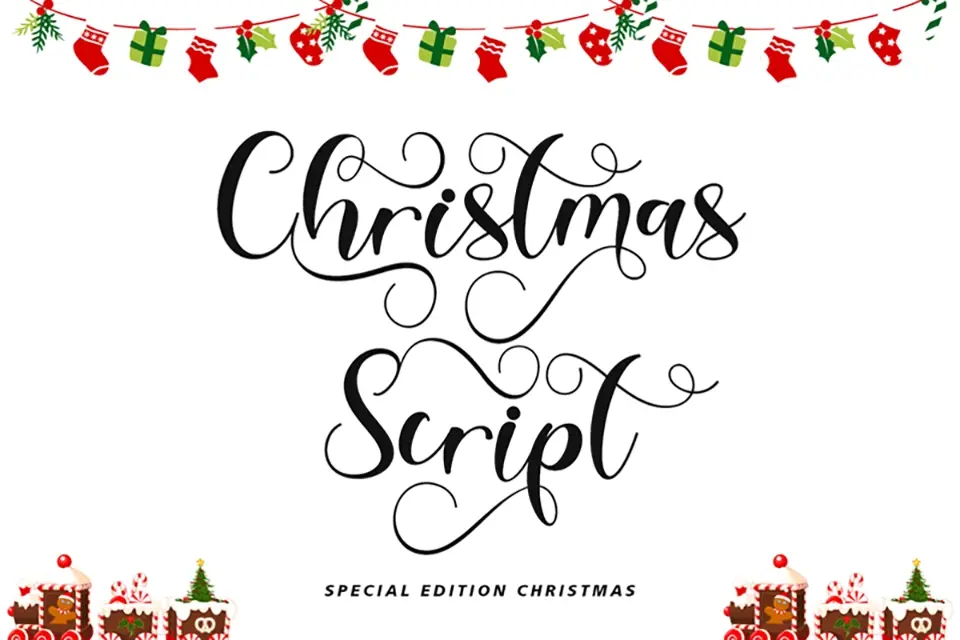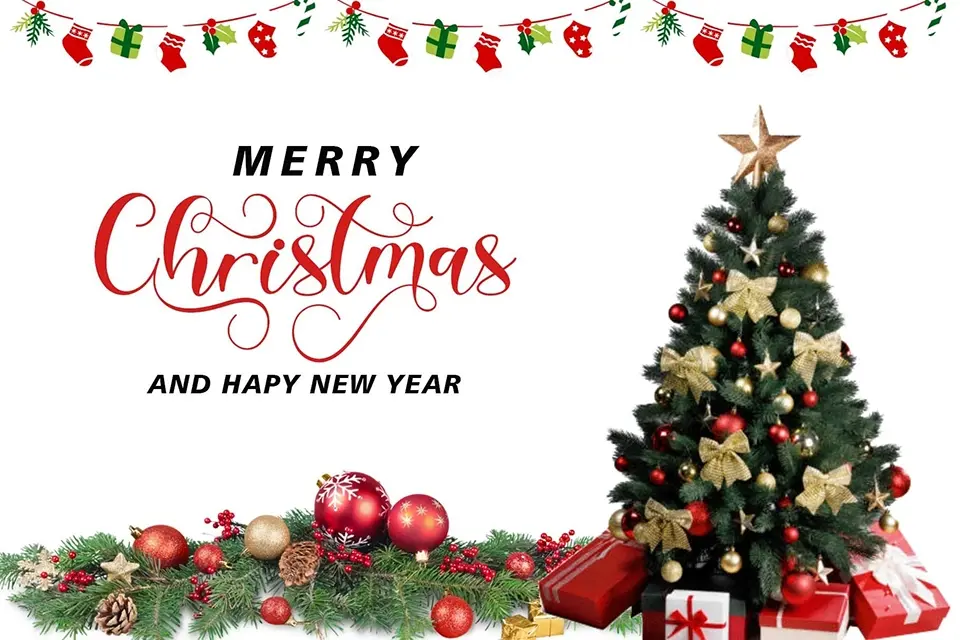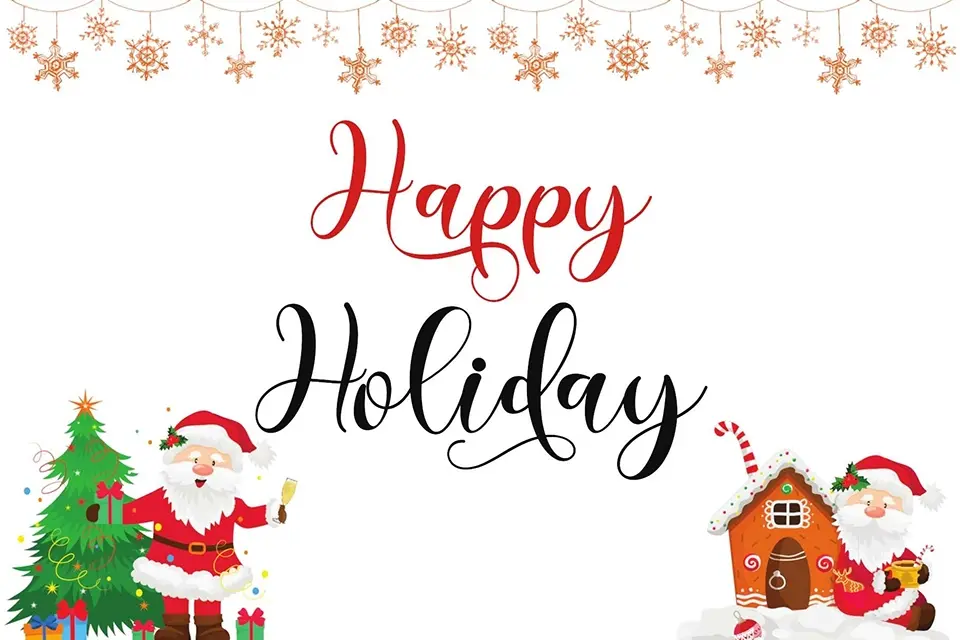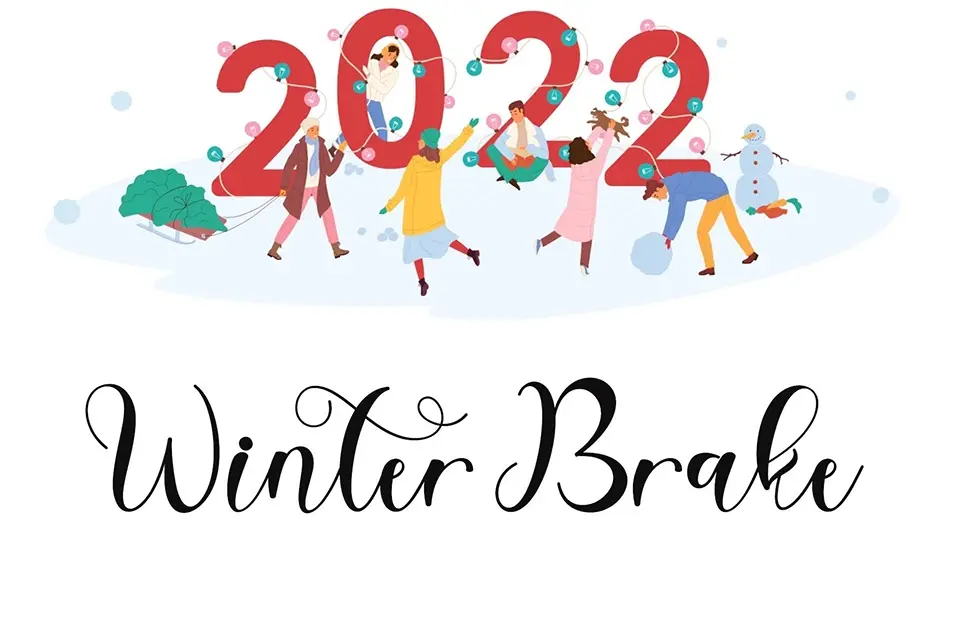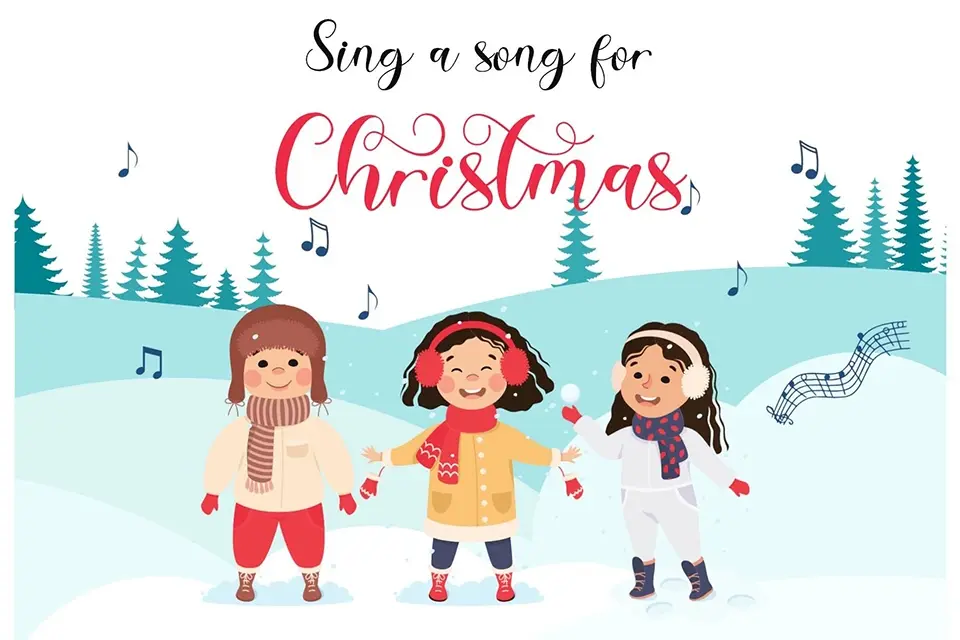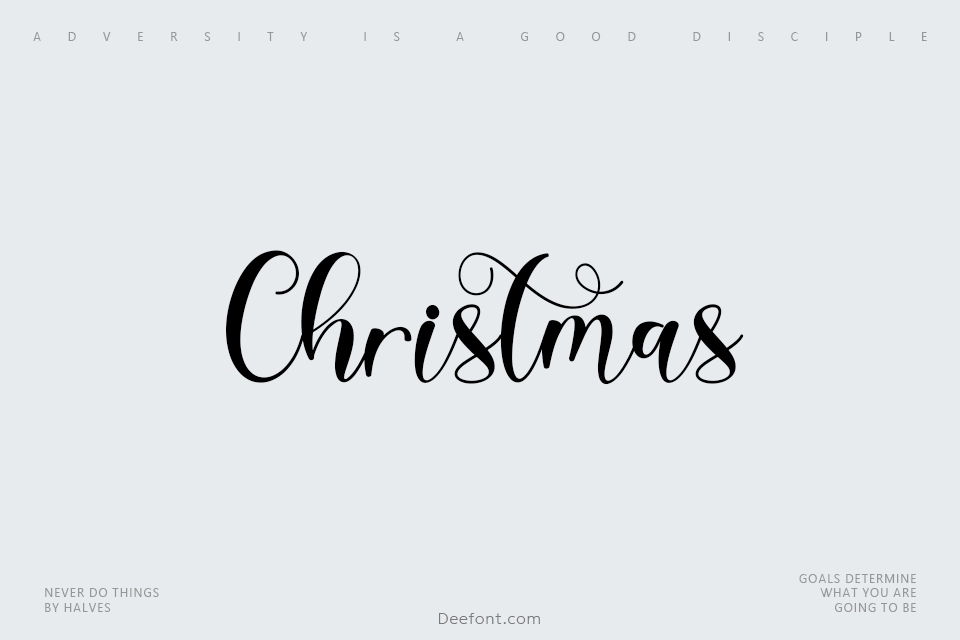
Christmas Script Typeface
Christmas Script is a graceful and elegant script font designed by Yoga Letter, perfect for festive and holiday-themed projects. With its flowing calligraphic strokes and delicate flourishes, this font captures the warm spirit of the Christmas season. Featuring uppercase letters, lowercase letters, ligatures, numerals, and punctuation with multilingual support, it’s ideal for creating personalized greeting cards, festive branding, holiday invitations, seasonal product packaging, and decorative designs. The font combines classic calligraphy with contemporary charm, making it versatile for both personal and creative applications requiring that special holiday touch.